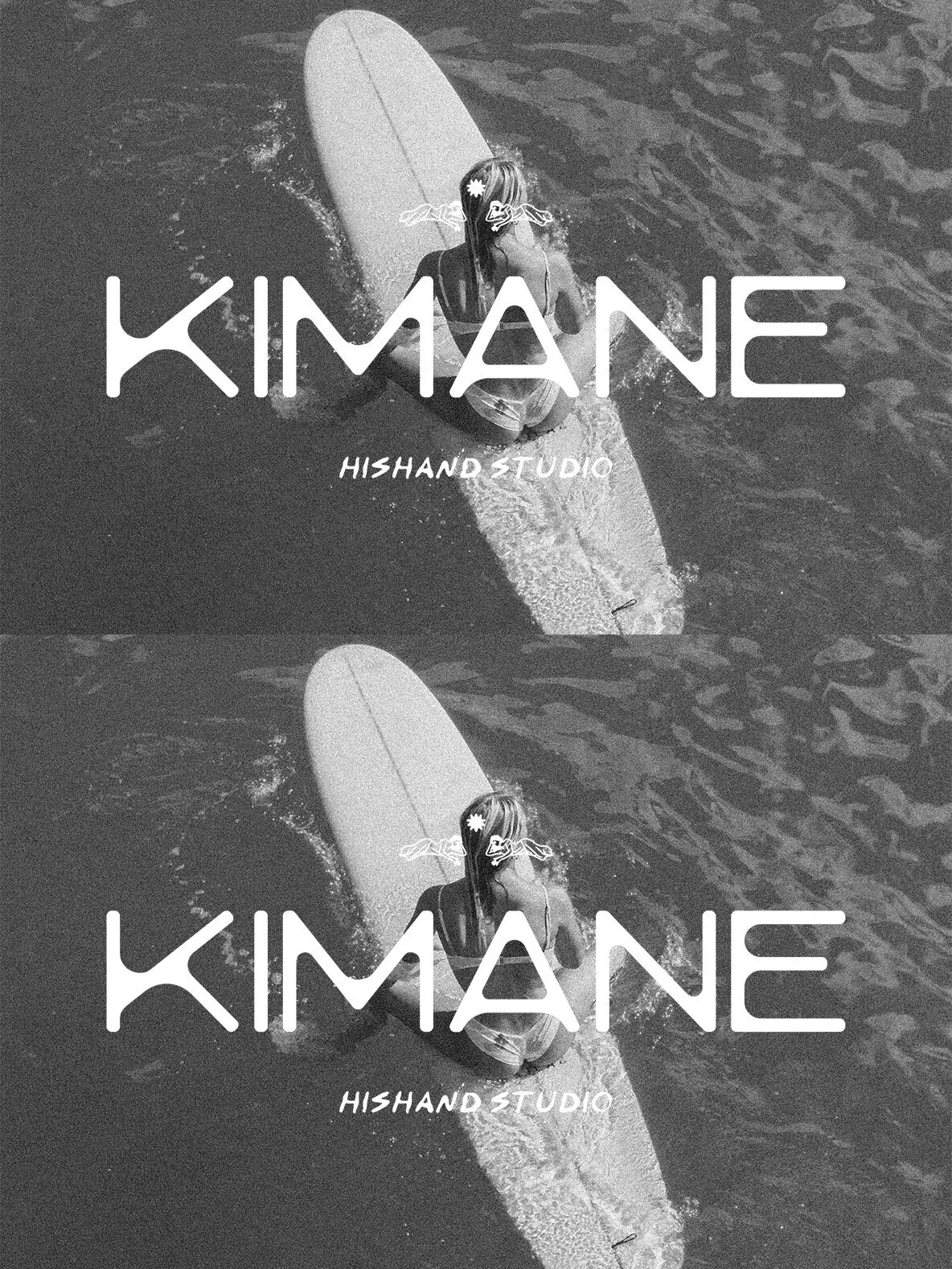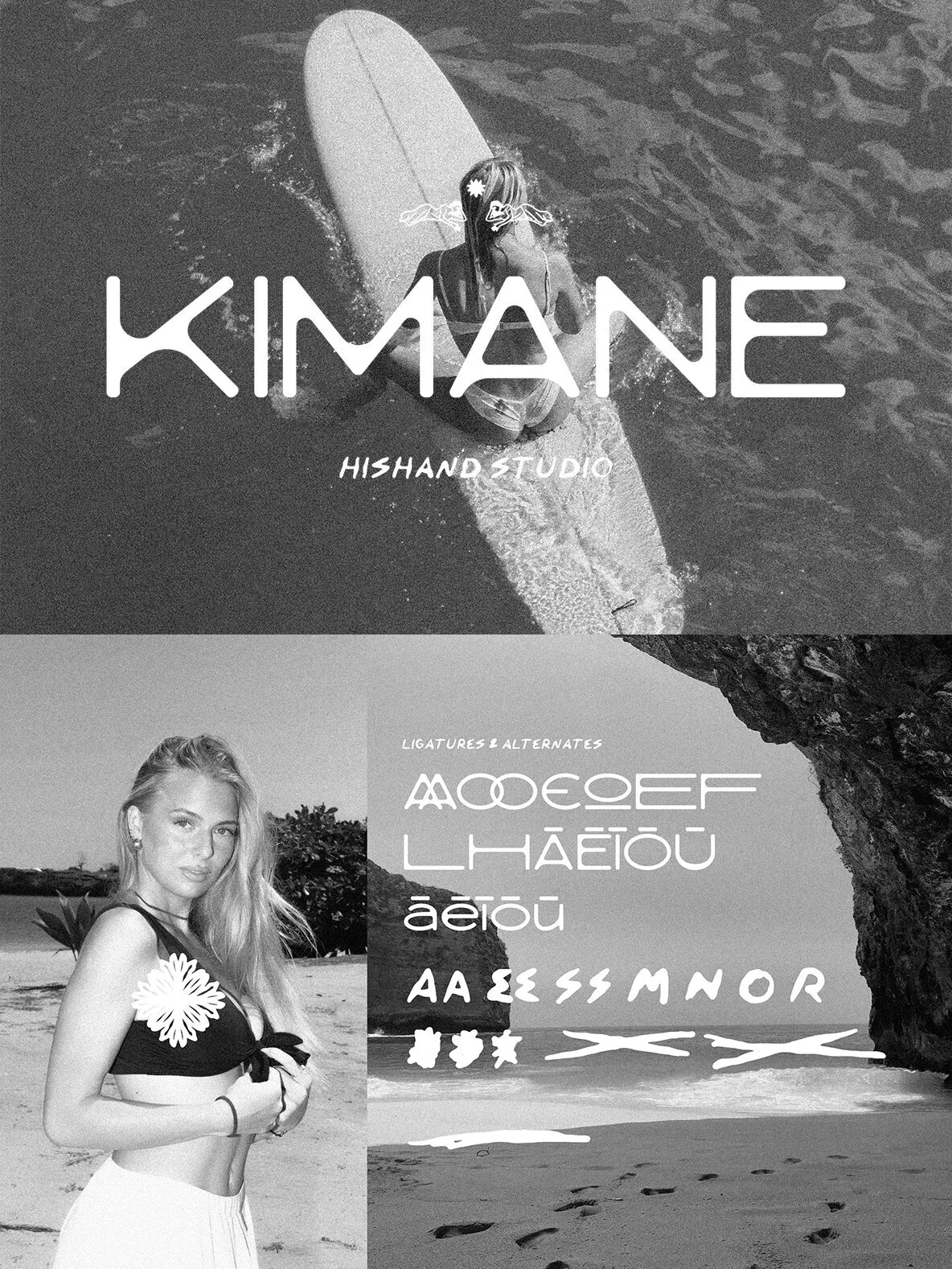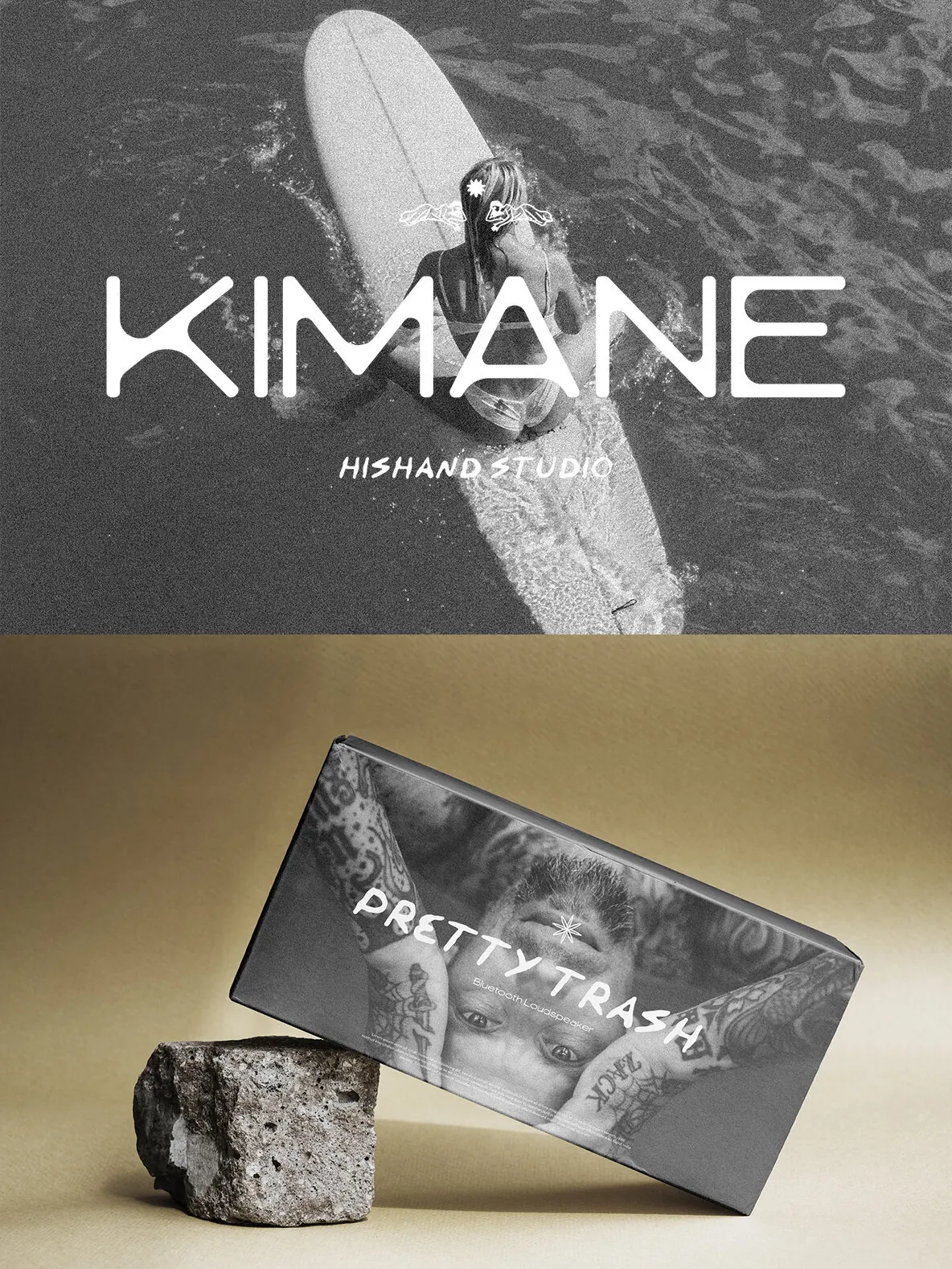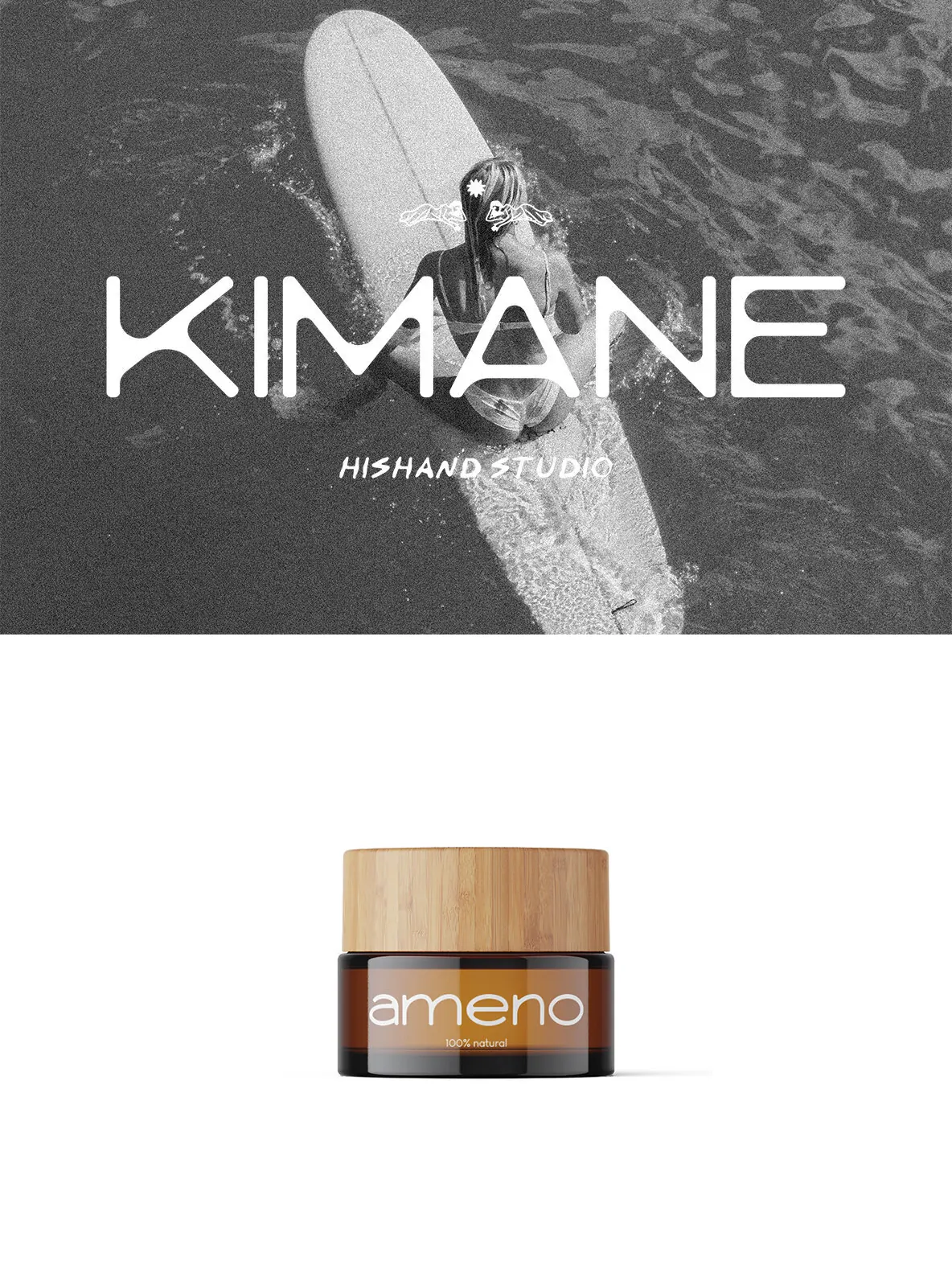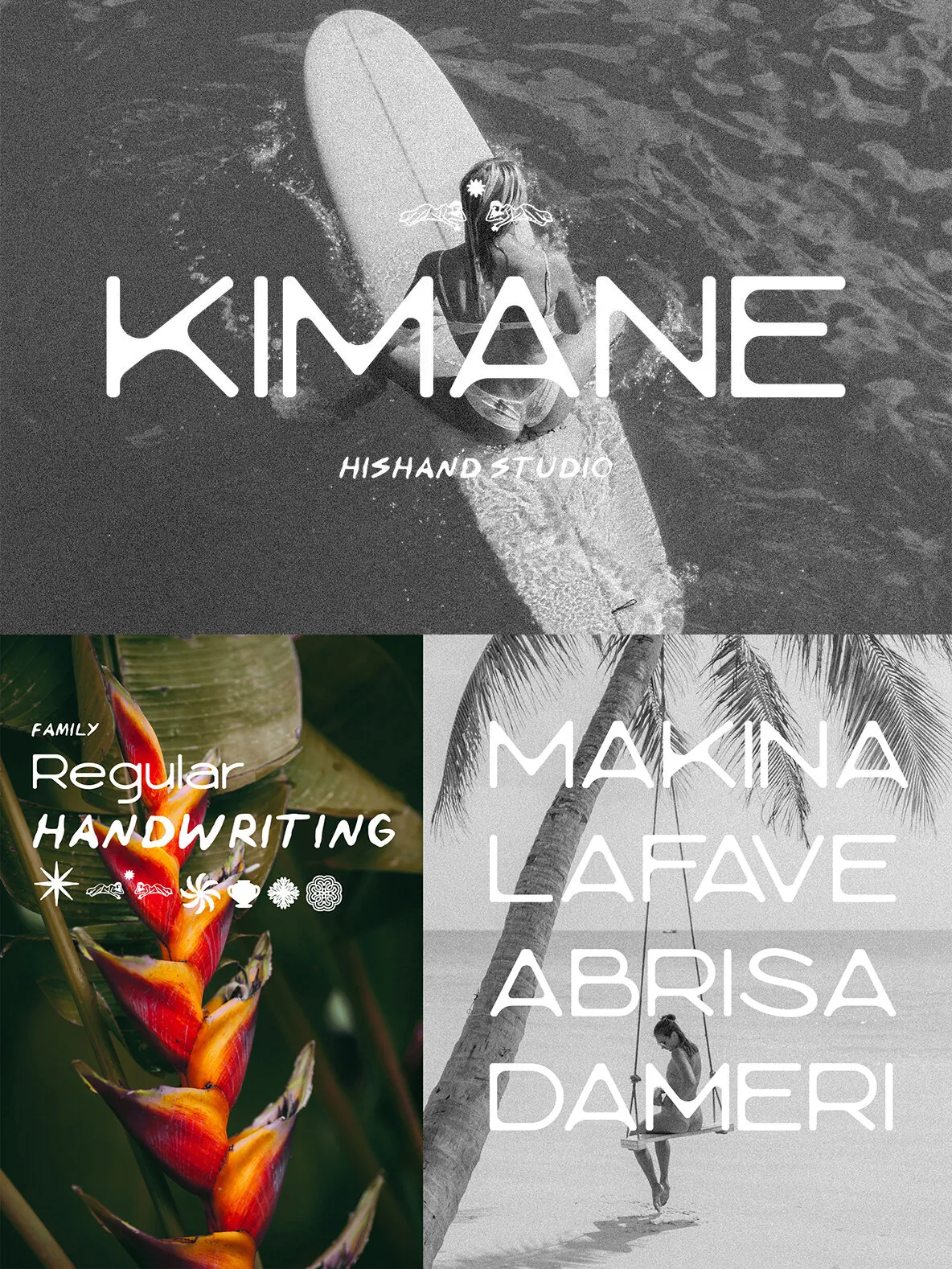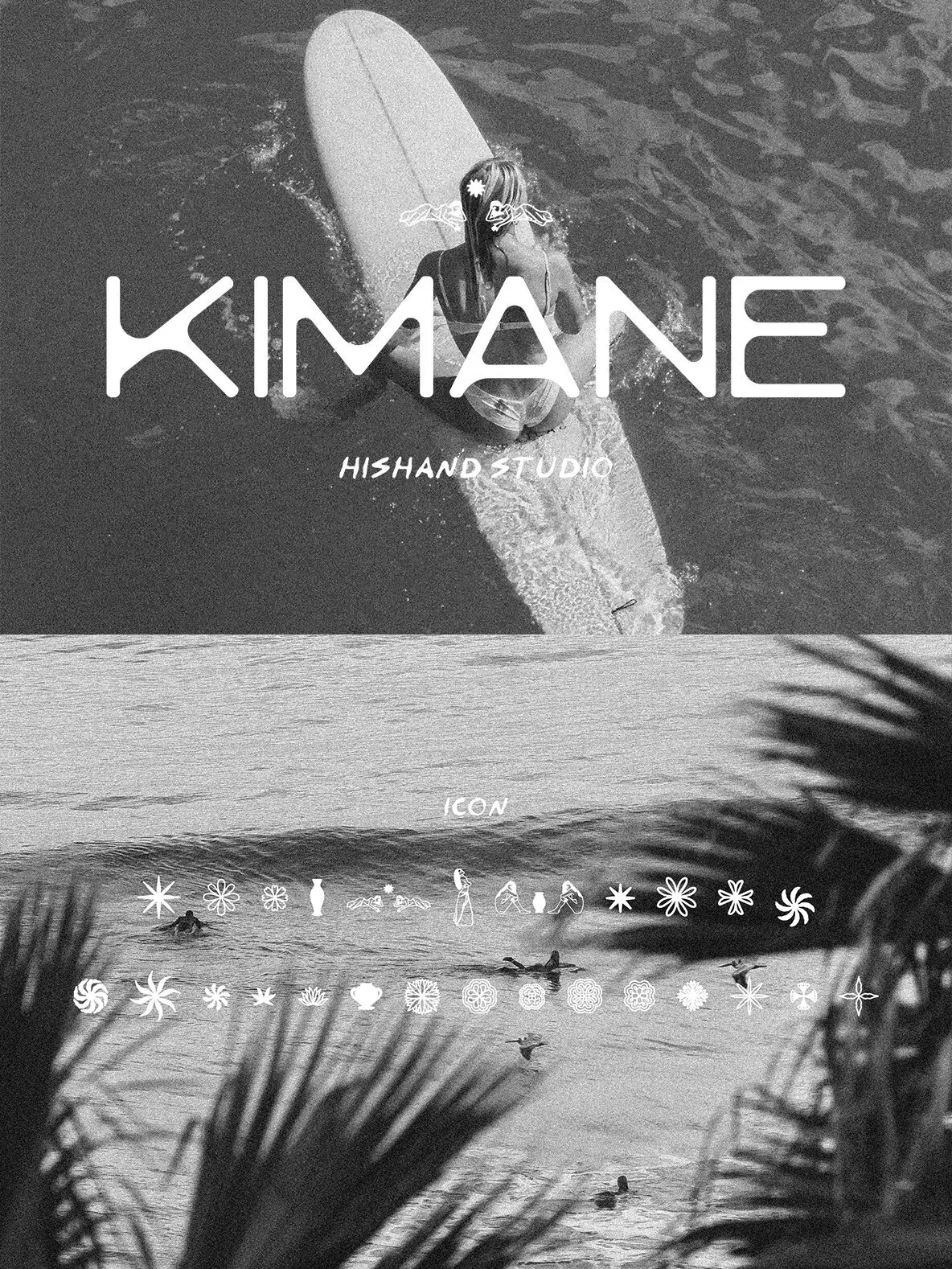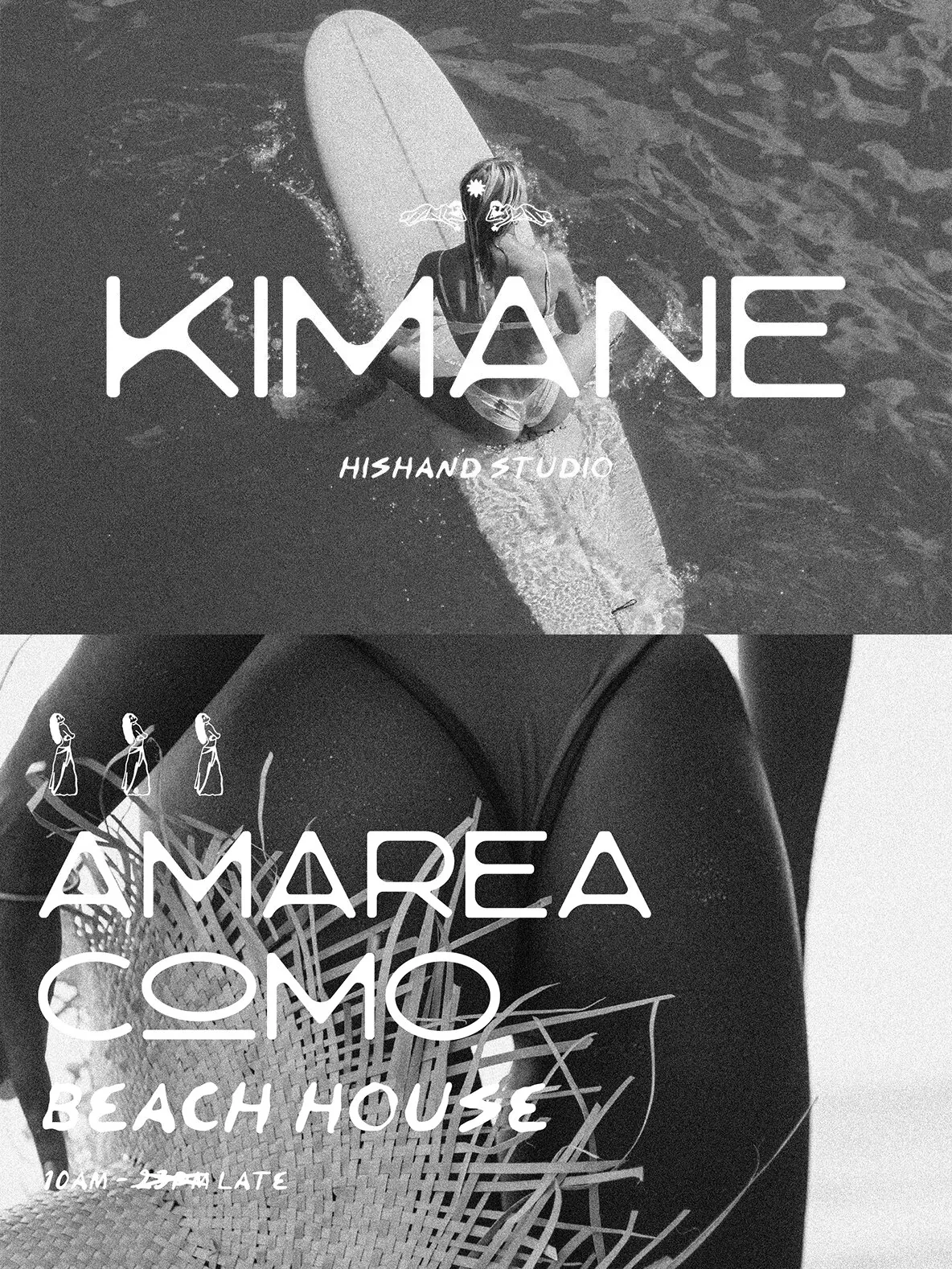
Kimane — Clean Lines, Coastal Ease
Kimane is a simple font duo that pairs a modern sans-serif with a tropical handwritten style. The sans-serif uses thin, clean lines and smooth curved edges for a soft, approachable tone. It avoids sharp corners, so it reads calm and friendly in minimalist headlines that need to stay light and airy. Slender proportions keep the page open and uncluttered, making Kimane a natural fit for layouts built around white space and a neat, restrained aesthetic.
The duo is completed by a handwritten script with a relaxed, organic feel. It echoes natural handwriting, like a quick note in a seaside sketchbook, and adds a human counterpoint to the sans-serif’s steady curves. Together, the Kimane Duo creates clean, sun-kissed harmony—ideal for social media graphics, lifestyle packaging, and projects that call for a calm, aesthetic finish.
Complete with
Ligatures
Alternates
Regular
Hand-writing
Icon
Kerning